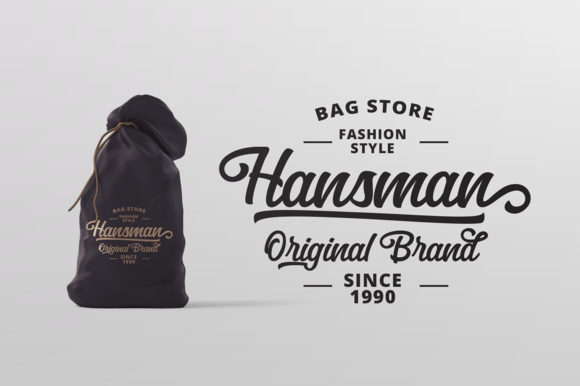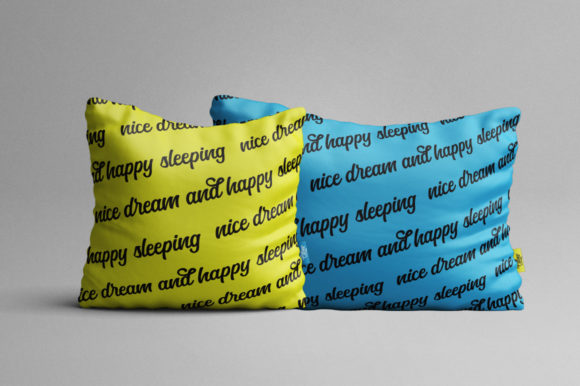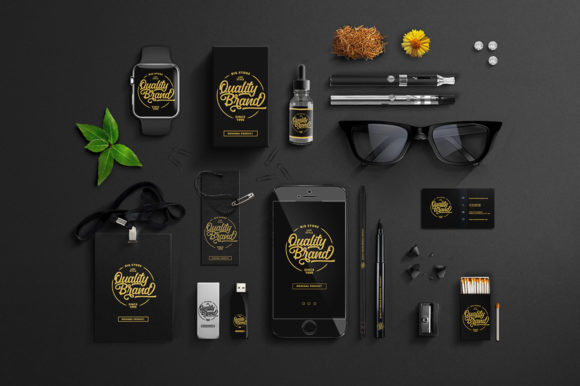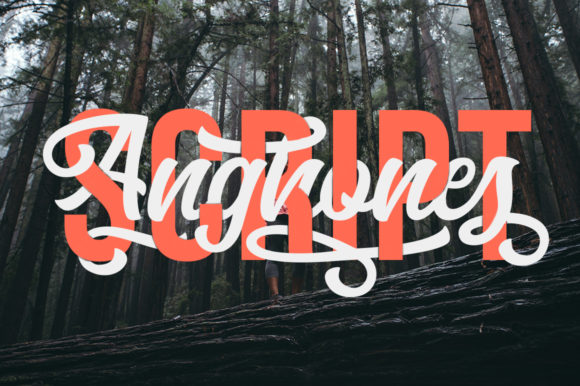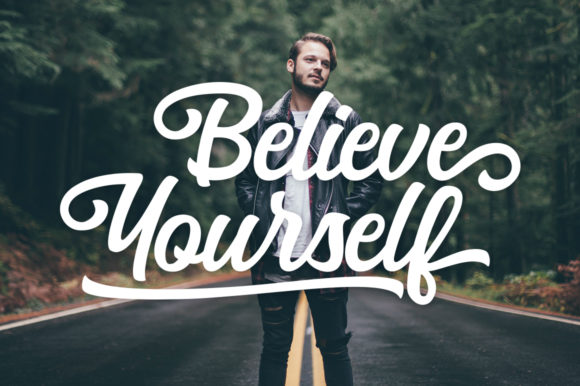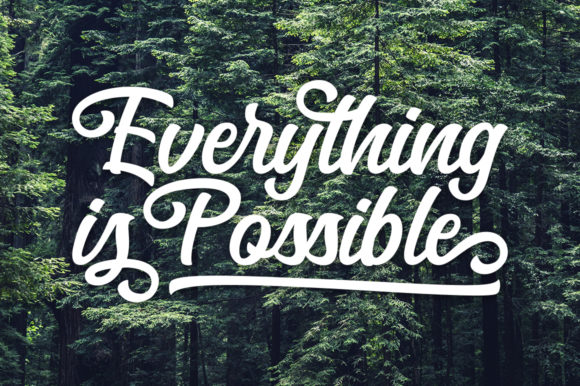
About Anghones Font
Anghones is an outstanding and bold handwritten font, crafted to give your headlines and logotype projects a stylish touch. This font reads as strong, confident, and dynamic and can add tons of nostalgic character to your designs.